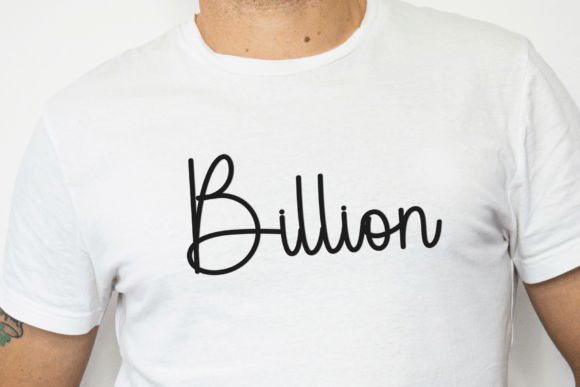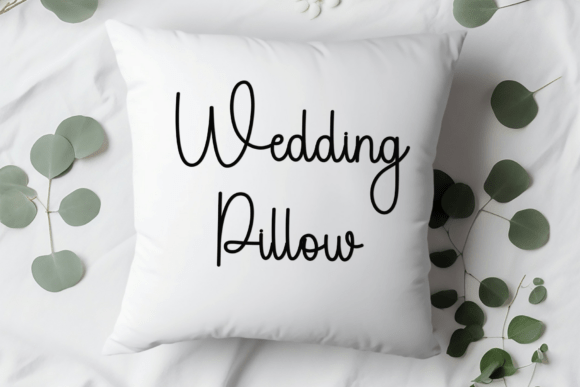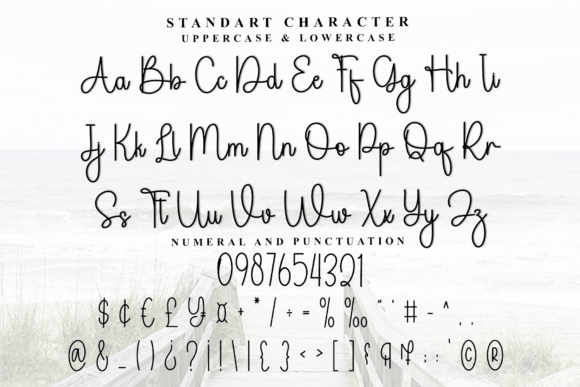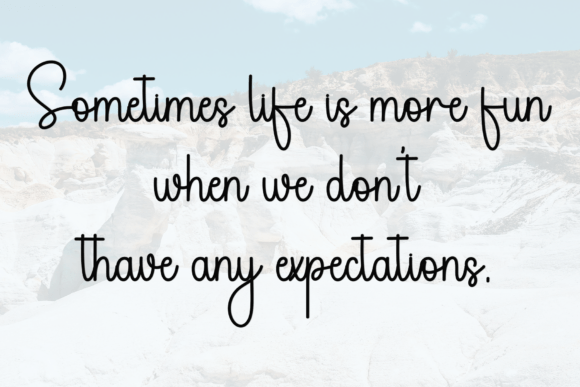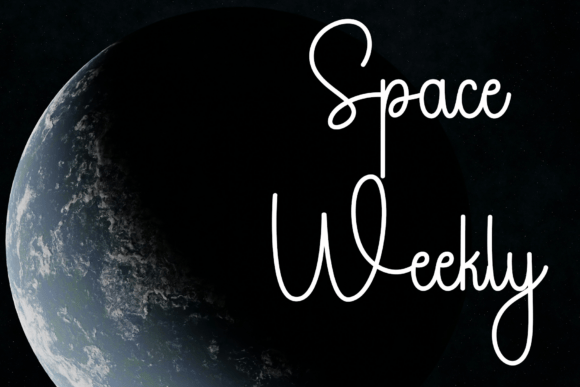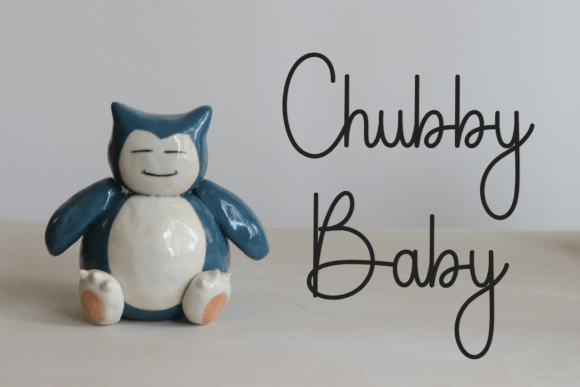
Introduction to Pleasure Font
Have you ever stumbled upon a font that instantly sparks creativity? Maybe it’s the subtle curves or the unique strokes that catch your eye. For designers and creatives, finding the perfect font can be a game-changer. It’s the moment when the design starts to come alive, and the message begins to shine through. That’s exactly what the Pleasure Font offers – a beautiful and eye-catching design that’s perfect for various creative projects.
With its high-quality design, the Pleasure Font is a valuable resource for designers. Its versatility and compatibility with different applications make it an ideal choice for a wide range of products, from graphics and logos to website designs and crafts. Plus, with a free download available, you can start experimenting with this stunning font right away.
Whether you’re working on a design project or simply looking for a new font to enhance your creative work, the Pleasure Font is definitely worth exploring. Its transparent background and unique character make it a standout choice for designers looking to add a touch of elegance and sophistication to their designs.
Pleasure Font
- High-quality font suitable for creative projects, including digital art and design.
- Includes a range of characters, including uppercase and lowercase letters, numbers, and punctuation marks, making it a versatile design tool.
Honest Review: Pleasure Font
I recently stumbled upon the Pleasure Font, and I must say it’s been a delightful addition to my design arsenal. As a designer, I’m always on the lookout for high-quality fonts that can elevate my creative projects. This one definitely delivers.
The first thing I noticed was the free download option, which is always a plus. It’s not every day you come across a font that’s both free and of high quality. The Pleasure Font is a beautiful, elegant script that’s perfect for a variety of design projects.
- ✨ Stylish and elegant design that’s perfect for branding and advertising
- ⚠️ Limited font styles available (only script and a few variations)
- ⚠️ Not ideal for projects that require a wide range of font sizes and styles
Overall, I’m really impressed with the Pleasure Font. It’s a fantastic design resource that’s perfect for designers who want to add a touch of elegance to their projects. With its high-quality design and free download option, it’s definitely worth checking out.
Pleasure Font
The Pleasure Font is a free download, high-quality design resource ideal for creative projects. With its unique style and transparent background, it’s perfect for adding a touch of elegance to your designs.
The Pleasure Font is perfect for:
Party and event branding
Product packaging and labels